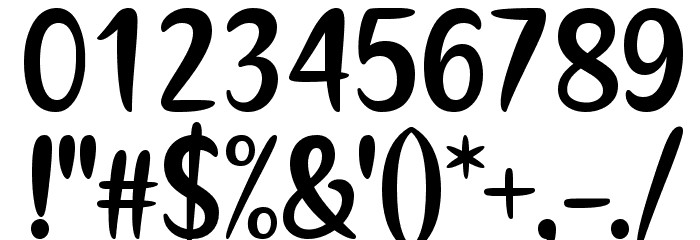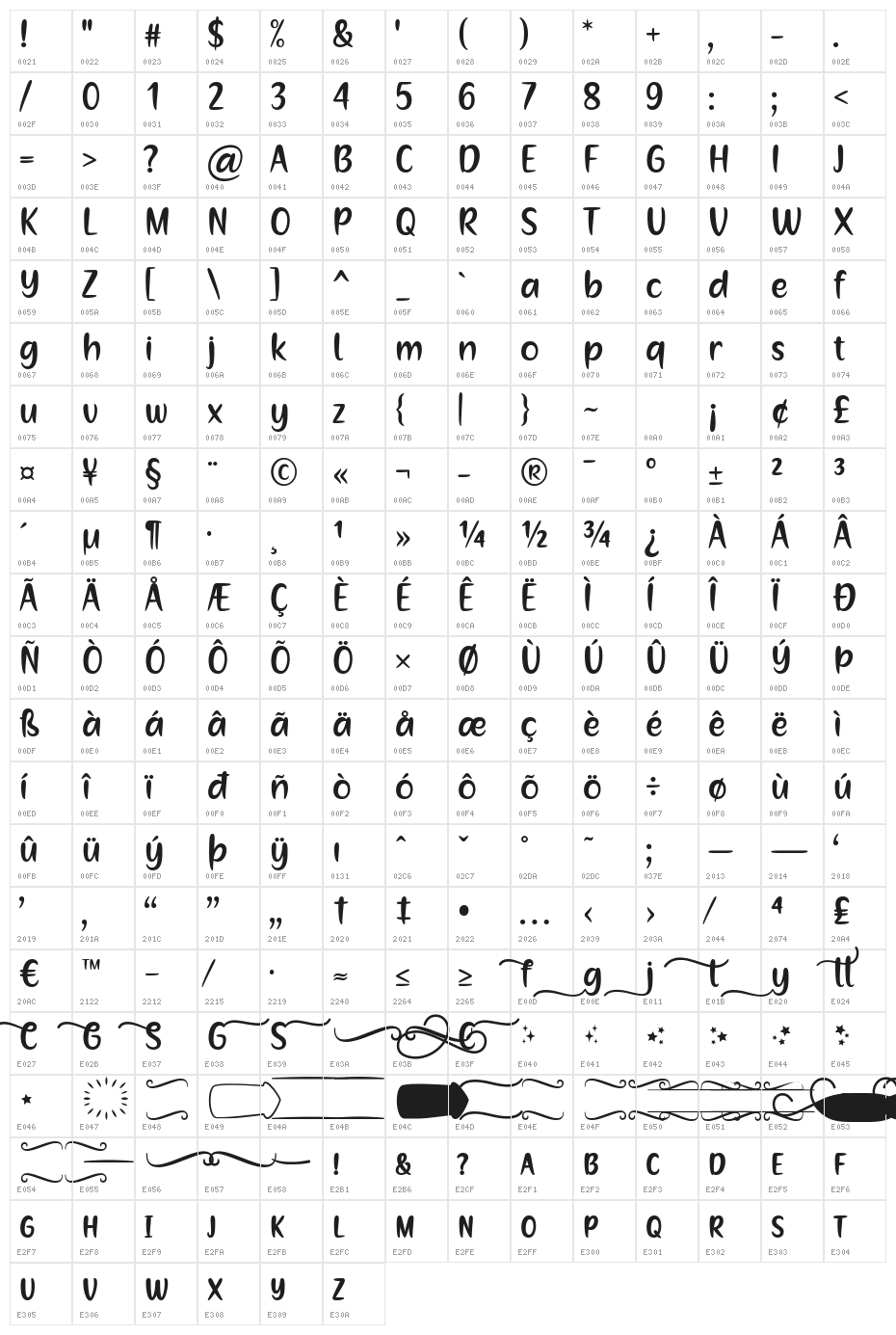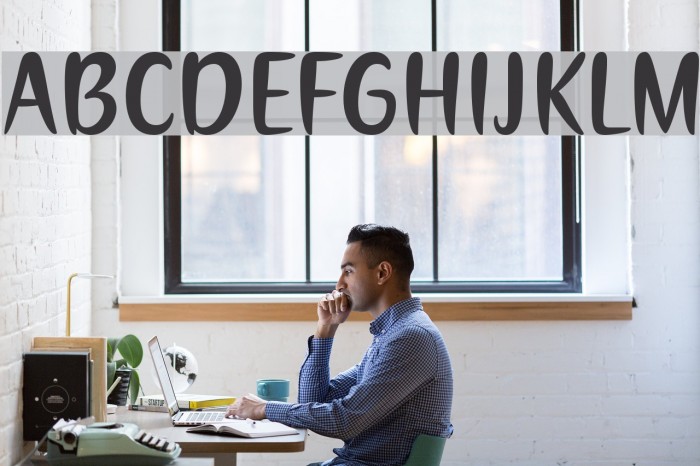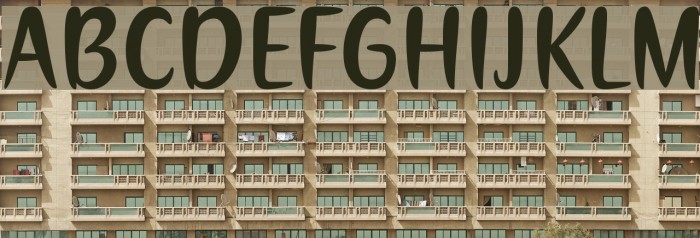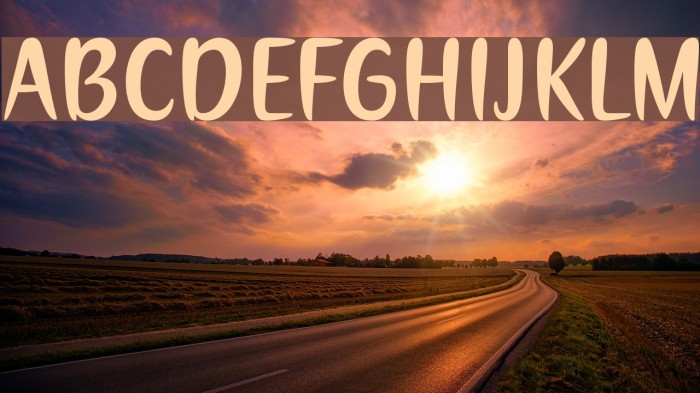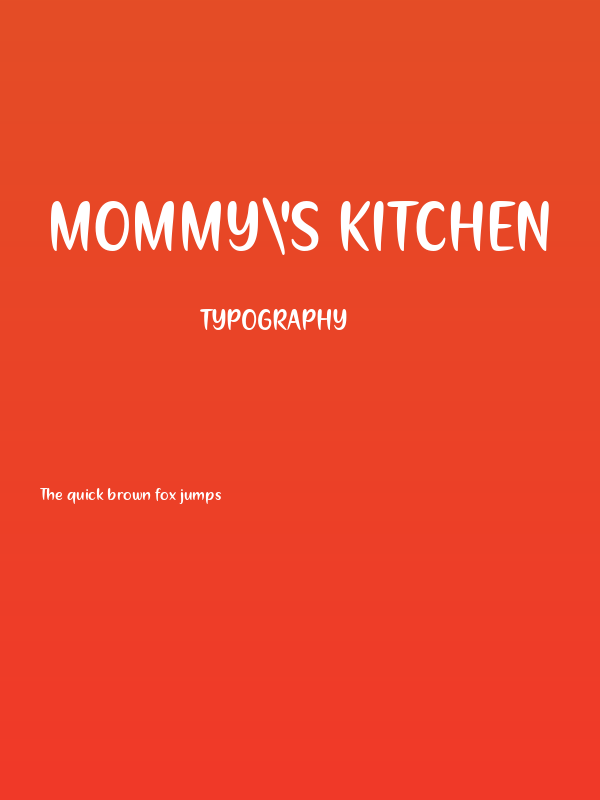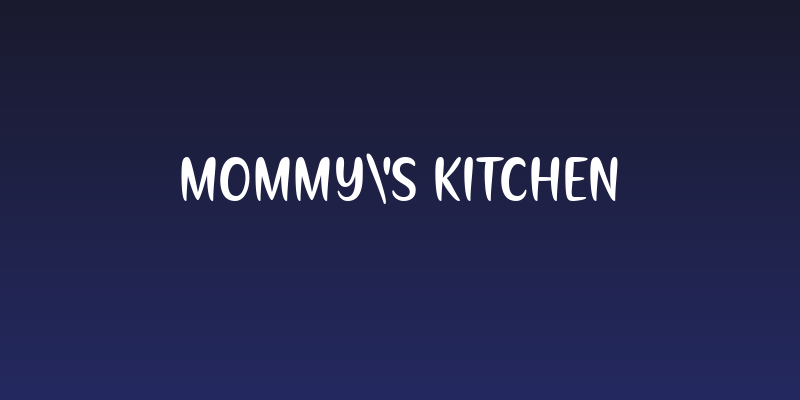
Mommy's Kitchen Font
Mommy's Kitchen Description
This playful and inviting font features rounded, smooth curves that give it a friendly and approachable appearance. The letters are bold and slightly whimsical, with a hand-drawn feel that adds a personal touch. The uppercase and lowercase letters are well-balanced, and the numbers are clear and easy to read. Special characters are included, maintaining the same playful style. This font is perfect for projects that require a warm and welcoming vibe, such as children's books, casual invitations, or branding for family-oriented products.
| Proposed Projects | Ideal for children's books, casual invitations, family-oriented branding, and playful designs. |